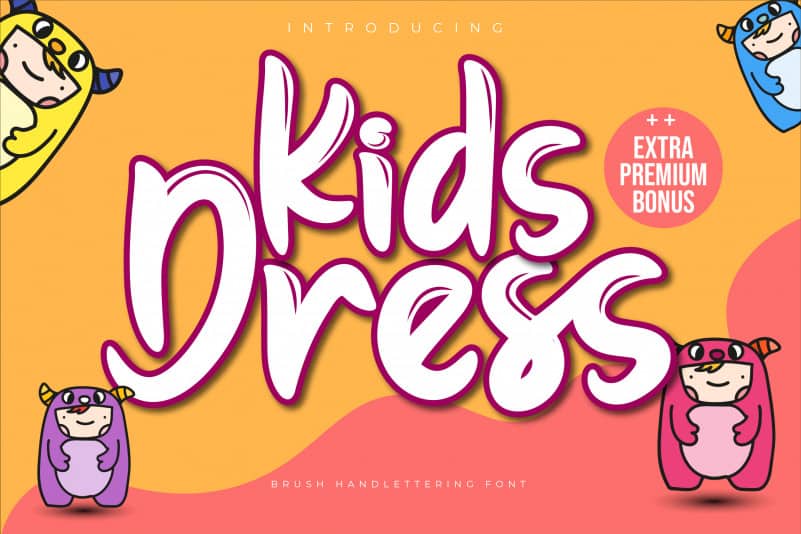
Kids Dress Brush Font
Kids Dress Brush Font is a cute and fun display font. It will add an incredibly joyful touch to your designs. Add this beautiful display font to each of your creative ideas and notice how it makes them stand out!